Awasome African Tribal Font Free Download Ideas
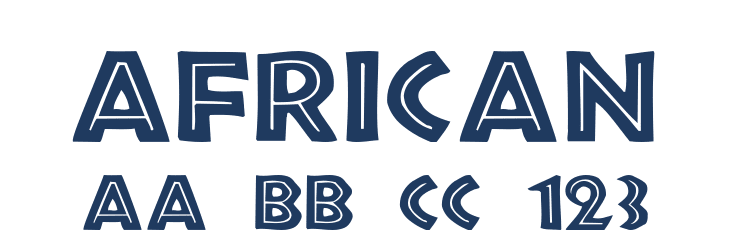
Web the font works great both for printing clothes and craft products branding and packaging (floristics, soap making, natural cosmetics). Browse by popularity, category or alphabetical listing. This is similar to the african and tuamotu.
I drew each letter with my finger using self made paint from crushed charcoal. In the event that you have to utilize this monetarily, you need to get a permit. Free fonts often have not all characters.